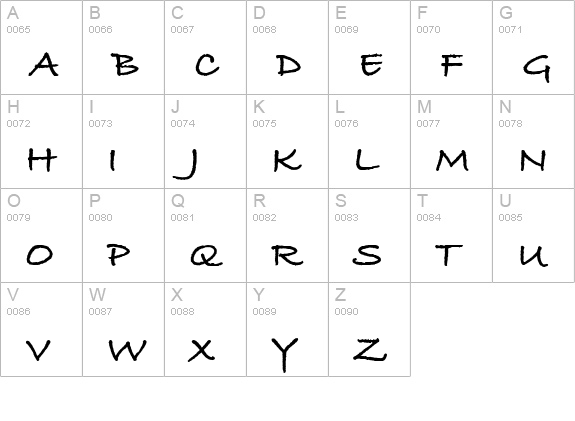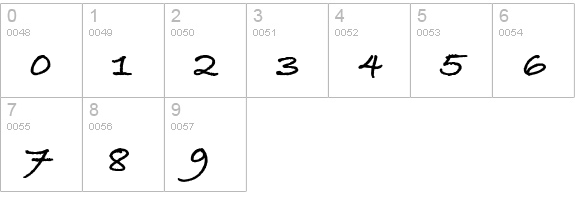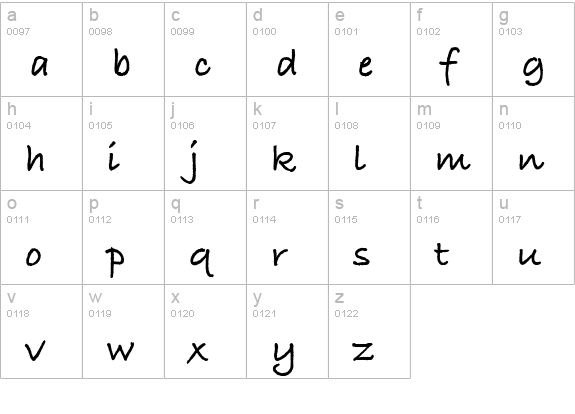
Bradley Hand Bold is a strong, high-contrast variant in the Bradley typeface family \xE2\x80\x94 well suited to headlines, attention-grabbing titles, and strong calls-to-action.
Bradley Hand Bold is a charming and versatile handwritten font that exudes warmth and personality. With its flowing strokes and natural feel, this font is perfect for adding a personal touch to your projects. Whether you're designing invitations, greeting cards, or branding materials, Bradley Hand Bold adds a touch of handmade elegance.